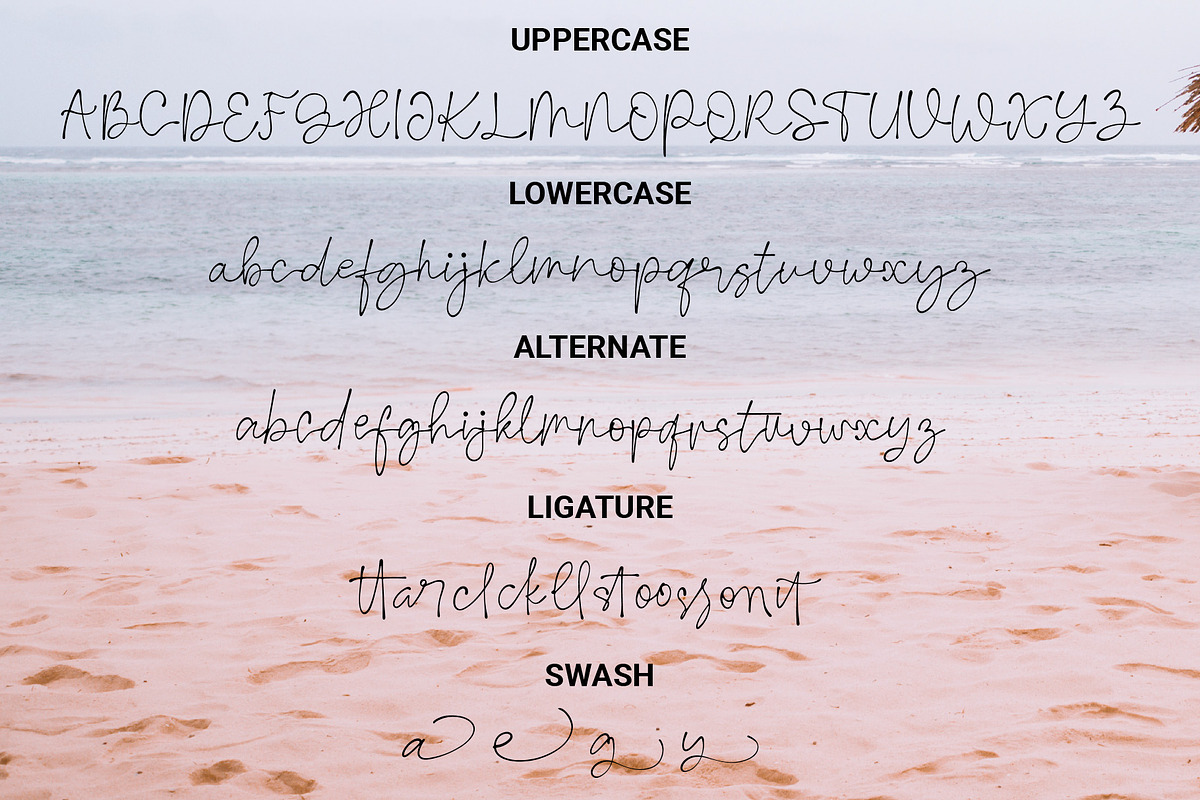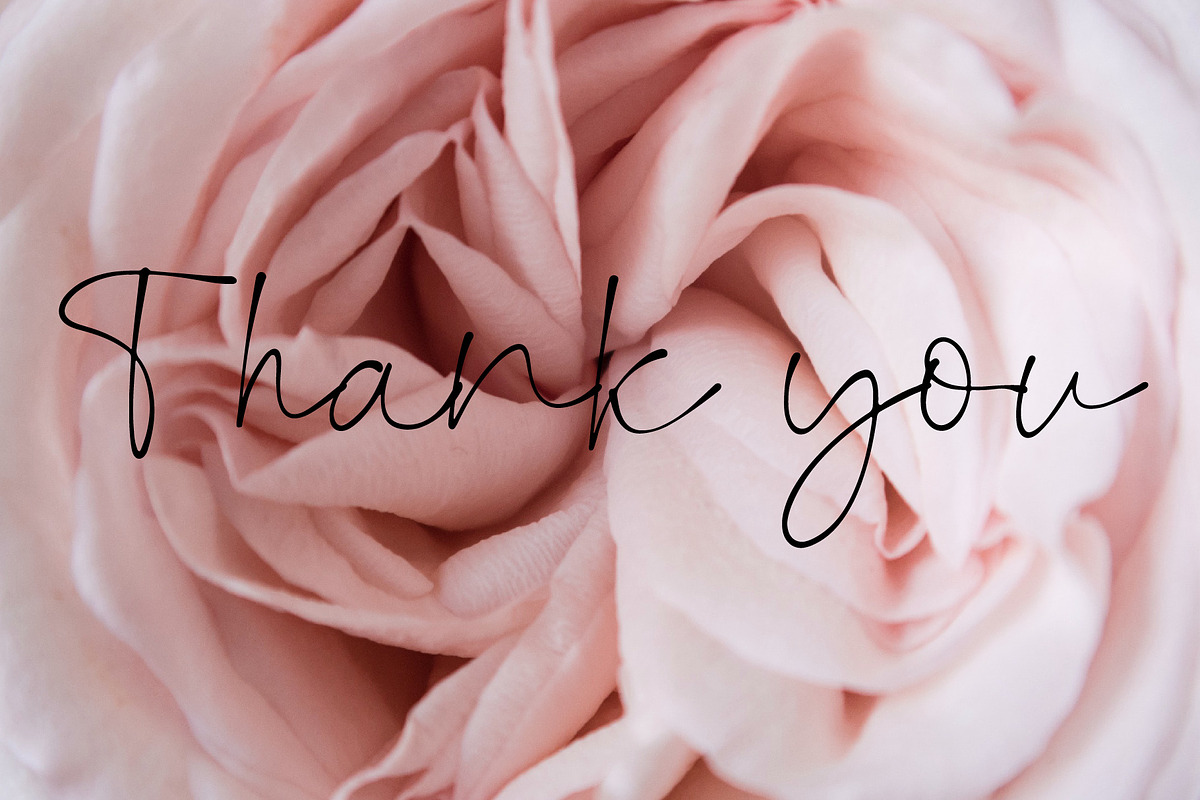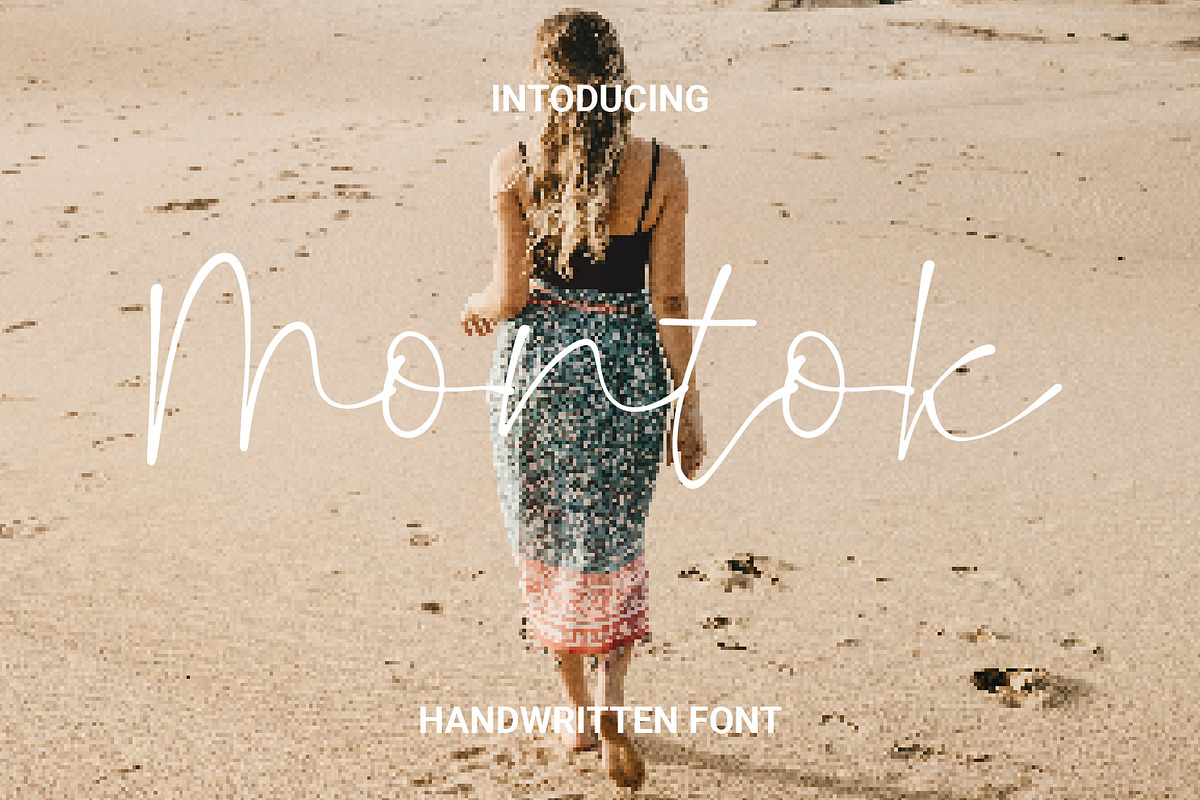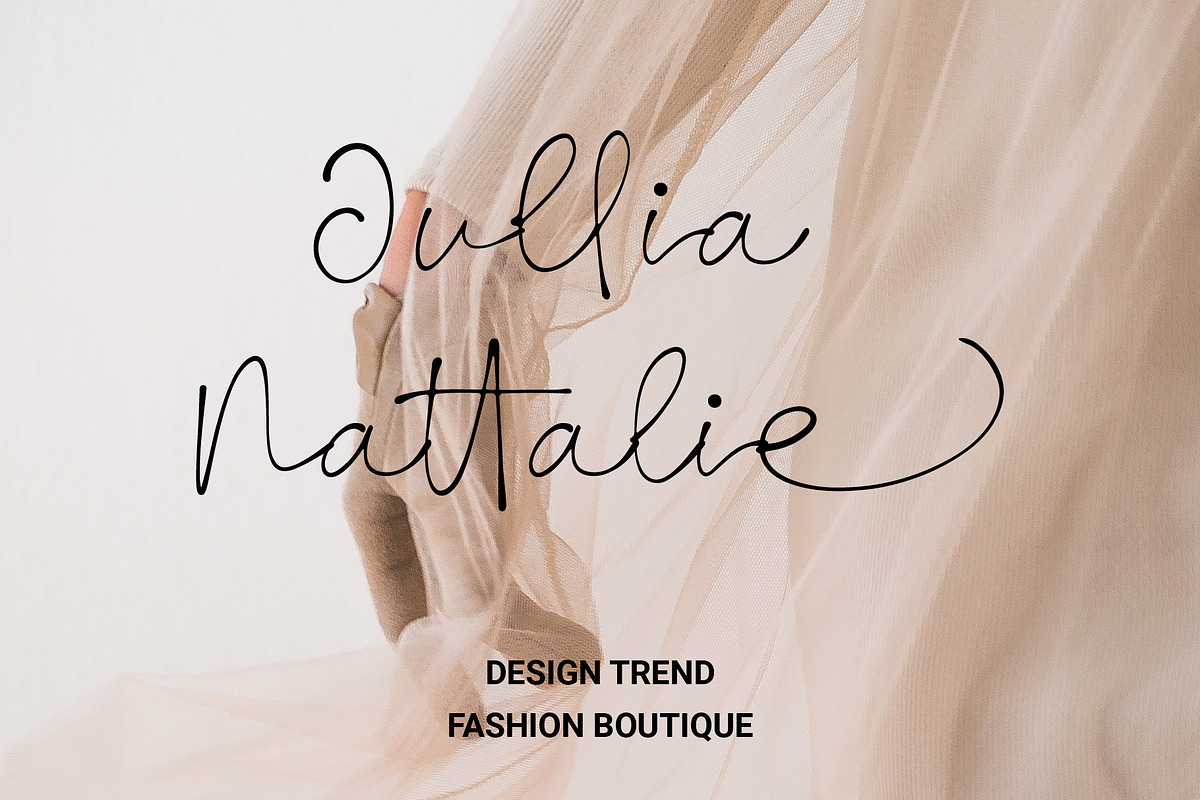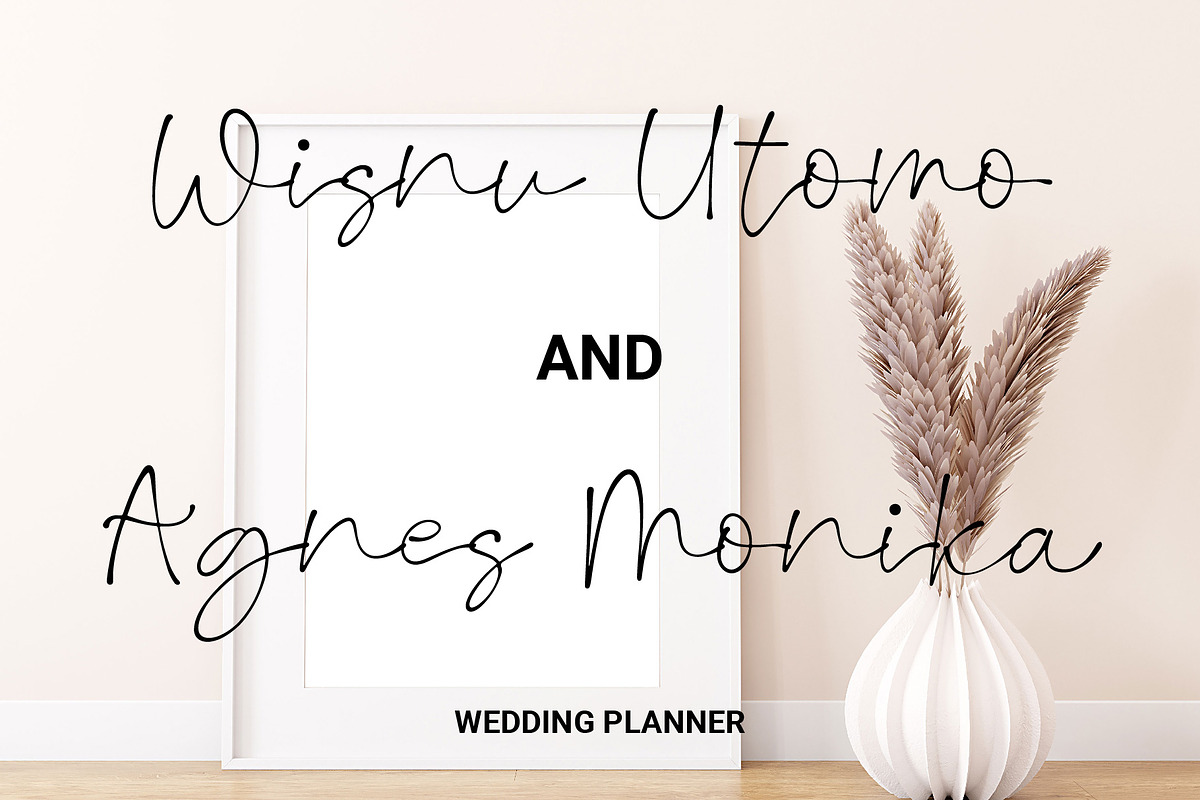
Montok
Montok is a type of handwriting that is scratched as beautifully as possible. This font script is for fashion, photography, wedding invitations, signature, or other uses according to your design needs.